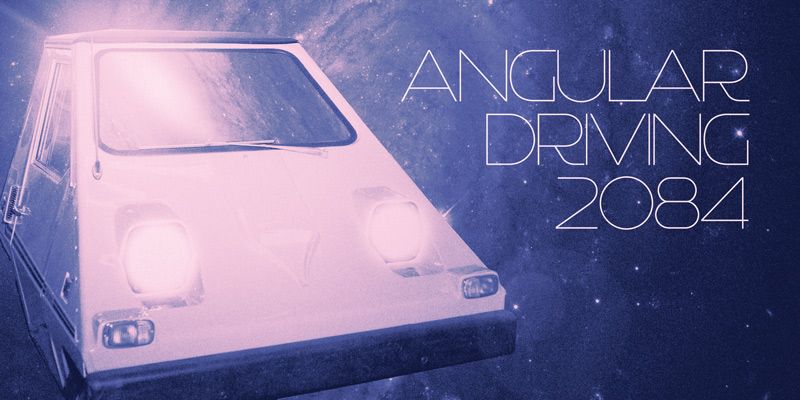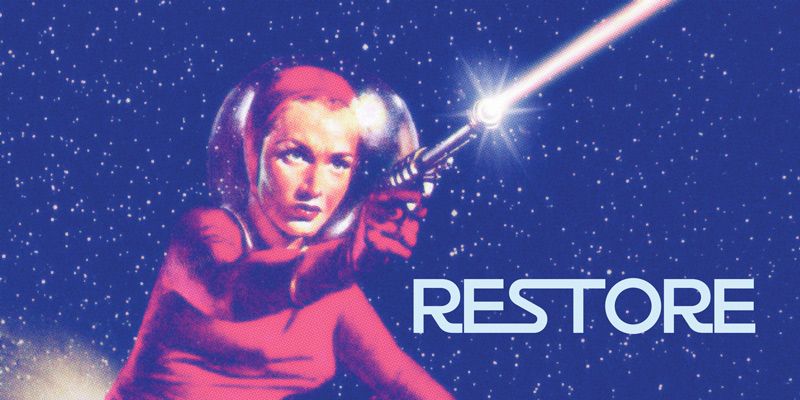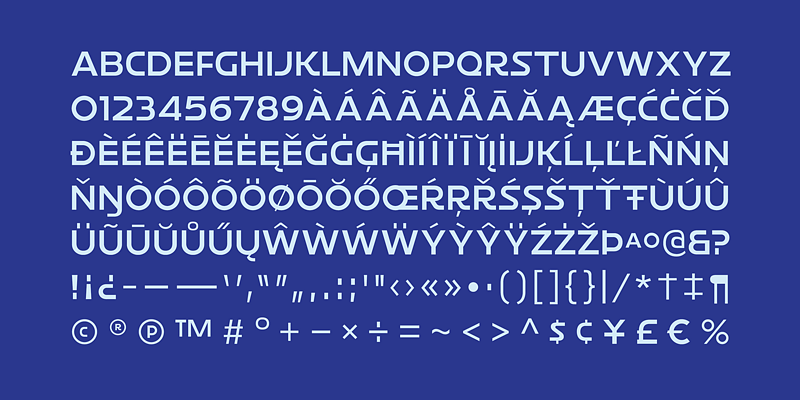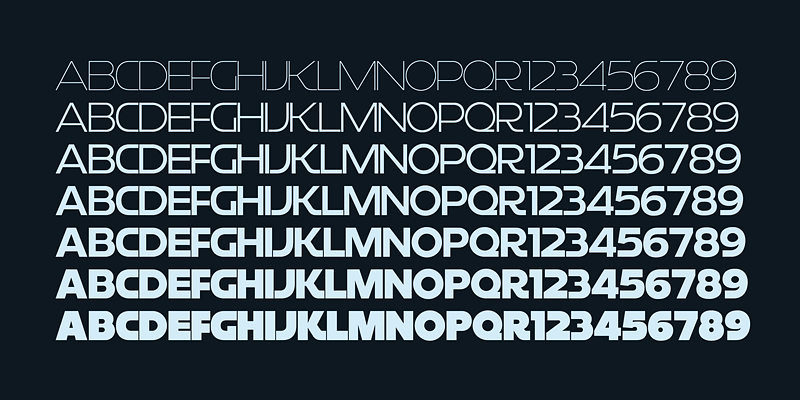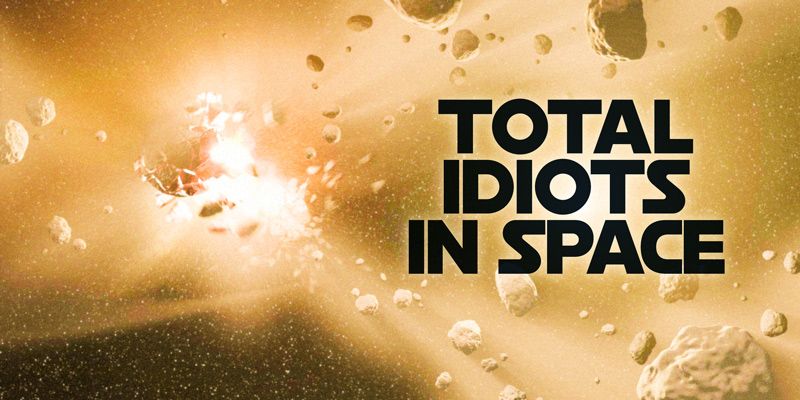
Restore draws on early twentieth-century German sign lettering, with long, sweeping forms packed close together. Certain combinations, including RS and ST, can interlock so a short word reads almost like one constructed mark. That close fit gives names and headlines an unusually strong silhouette. Seven upright weights run from ExtraLight to Black: the lighter end exposes the structure, while heavier styles make the joins more emphatic. A poster title, vehicle graphic, or sports equipment name can use those compact relationships as the main visual event. Short words reward close attention to the way one letter meets the next.